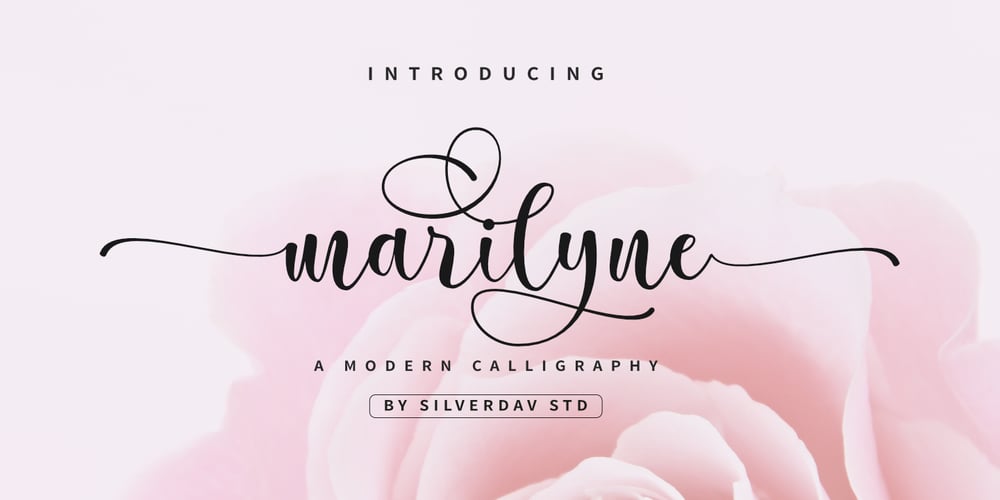
Marilyne Font Family was designed by David Kasidi and published by Silverdav. Marilyne contains 1 styles and family package options. Marilyne is a modern calligraphy font with handwritten, sophisticated flows. It is full of hearts and glyphs. It is perfect for branding, wedding invites, and cards.Marilyne includes a full set of lovely and swashes lowercase letters, multilingual symbols, numerals, punctuation and ligatures. Also it includes: -short lowercase beginning and ending swashes (This is so perfect for invitations, monograms) -long lowercase beginning and ending heart swashes.Marilyne includes 12 beginning and ending swashes lowercaseThe font has a smooth texture, so it would be perfect for all types of printing techniques you can do embroidery, laser-cut, gold foil, and is ideal for cutting.